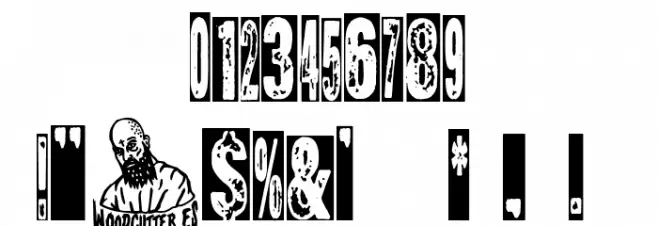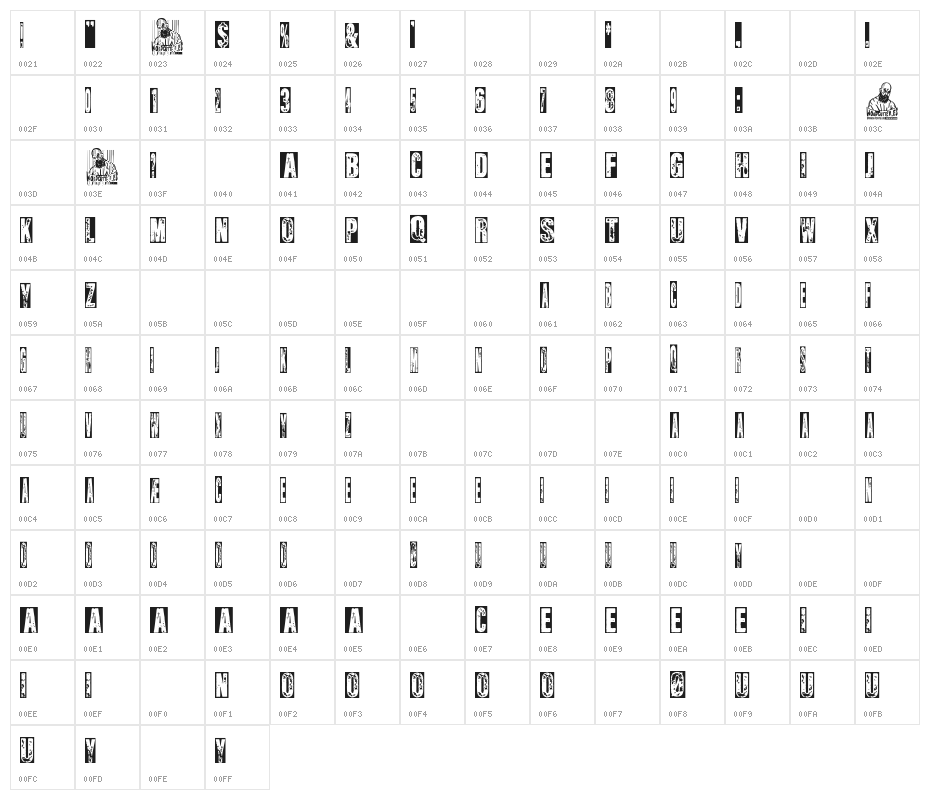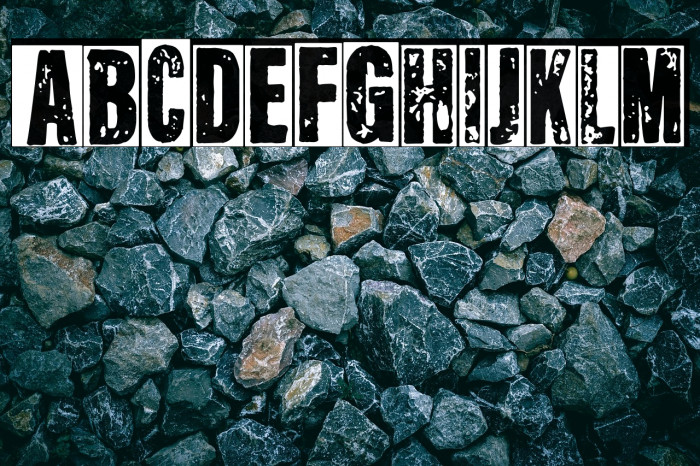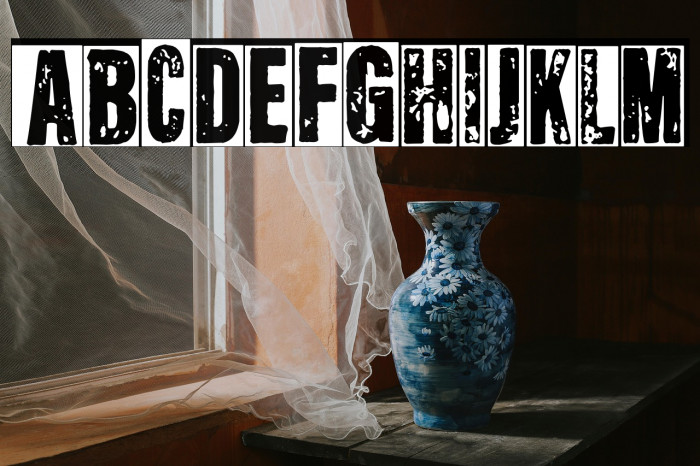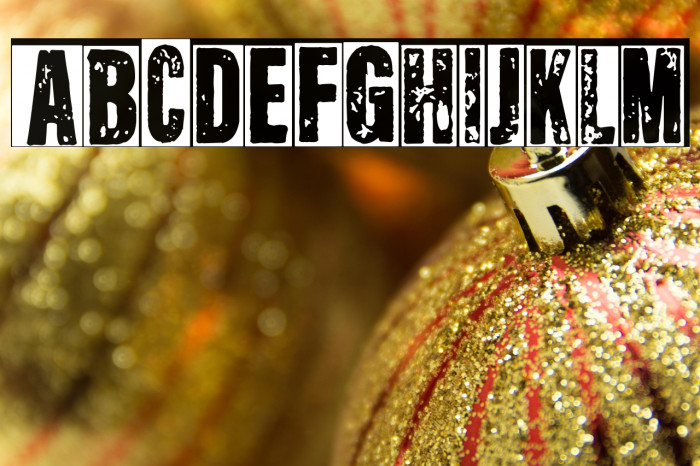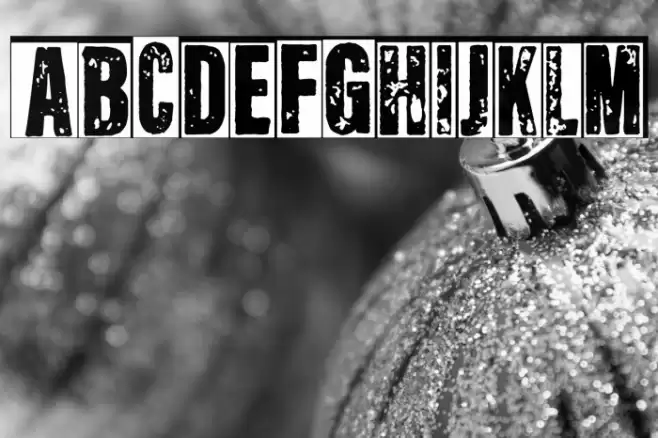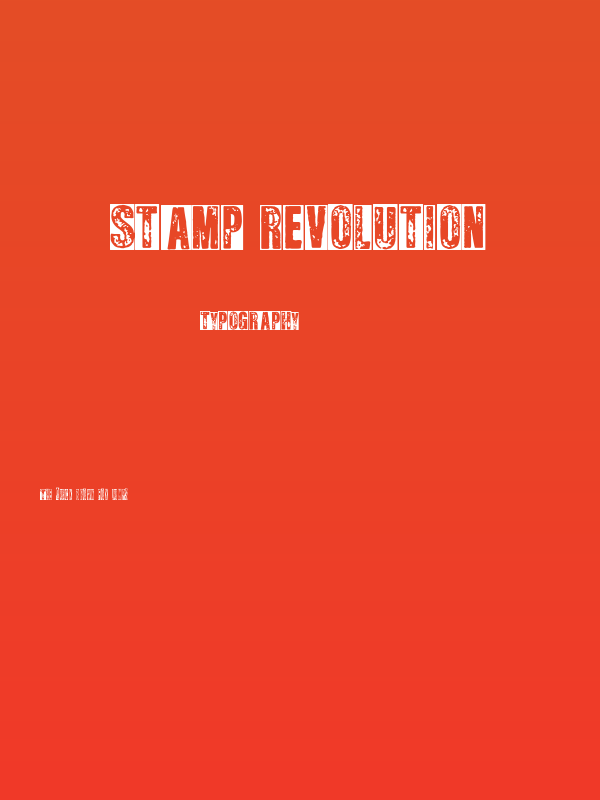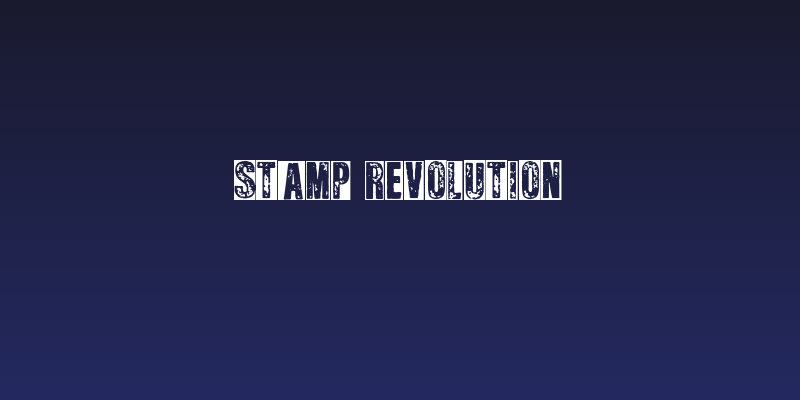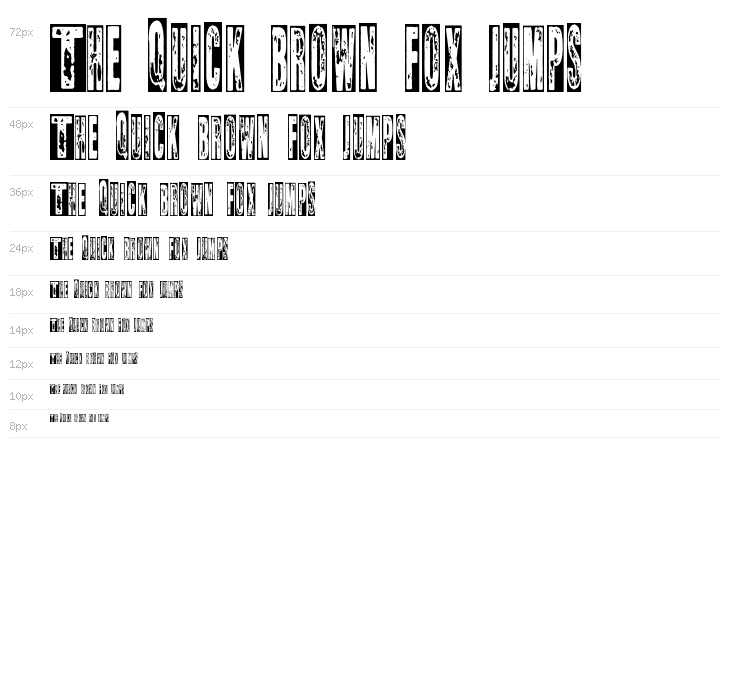
Stamp Revolution Font
This font features a rugged, distressed appearance, reminiscent of old stamps or worn-out typewriter keys. The characters are bold and blocky, with a textured, grunge effect that gives them a vintage and industrial feel. The uppercase and lowercase letters maintain a consistent style, with numbers and special characters following suit. This font's unique, weathered look makes it stand out, ideal for projects that require a touch of nostalgia or a rebellious edge.
| Proposed Projects | Ideal for posters, album covers, branding for edgy or retro-themed products, and any design requiring a bold, vintage look. |